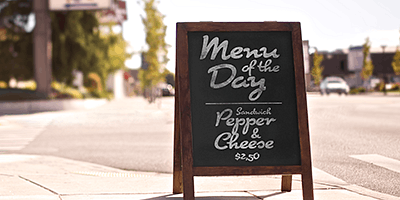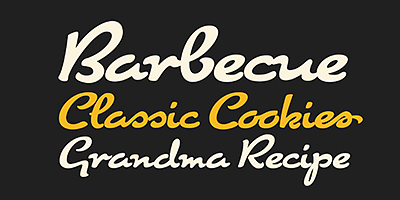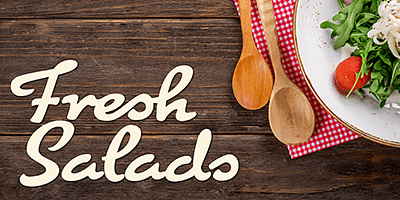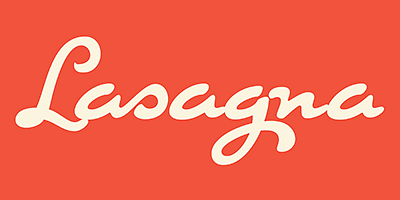
Cuisine originated from a how-to lettering book from the 1950s. It suggests the script style found on food and beverage labels in the early 20th century. This creamy font does for food advertising what Bodoni does for haute couture. Its simmering, hand-scribed charm captures the complexity of wine and the robust energy of coffee. It shines on luxe food packaging or high-end menus.